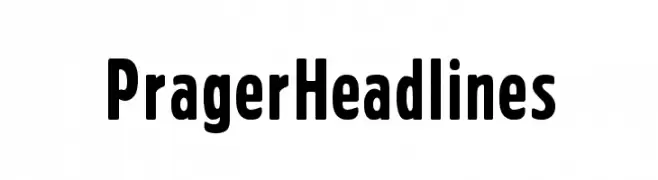
A bold, modern font with strong geometric influences and uniform strokes.
A modern, geometric font with rounded edges and balanced proportions.
A bold, modern sans-serif font with clean lines and uniform stroke width.